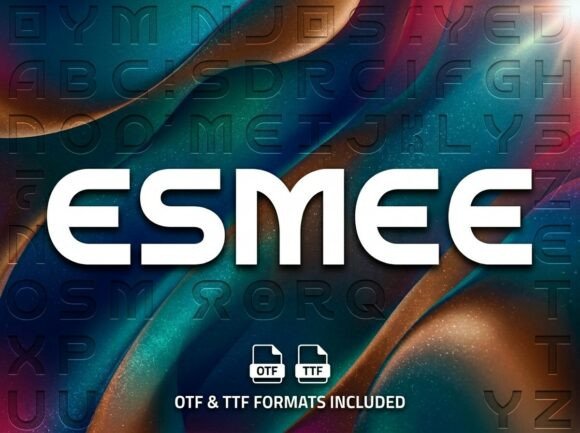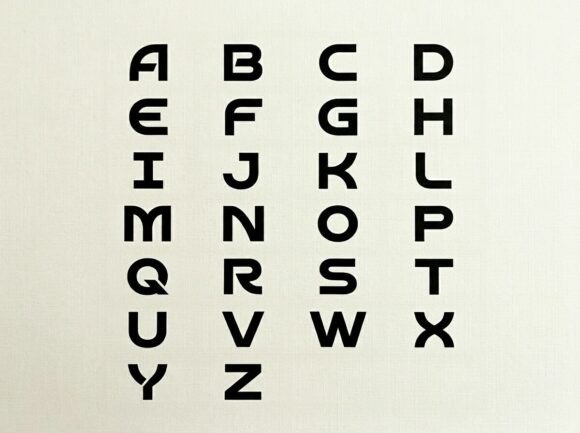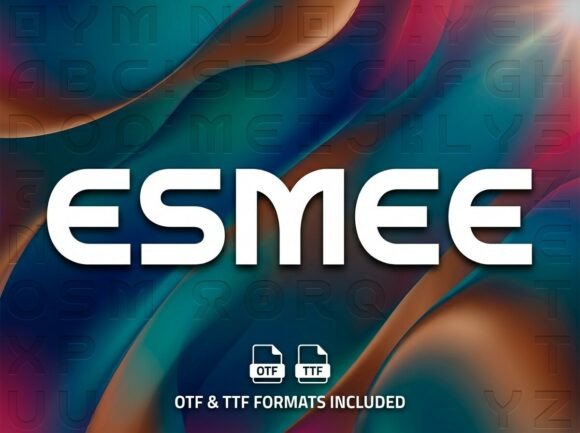
Introducing Esmee Font: A Stunning Decorative Display Font
Are you tired of using the same old fonts for your creative projects? Look no further than Esmee Font, a breathtaking decorative display font that’s sure to turn heads. With its unique artistic elements and strong visual personality, this font is perfect for creators who want to break away from the ordinary and make a statement.
What Makes Esmee Font So Special?
Esmee Font is a versatile decorative display font that’s designed to be the center of attention. Its stunning artistic elements and strong visual personality make it perfect for a variety of creative projects, from bold headlines and artistic logos to creative packaging and decorative initials. Whether you’re a designer, crafty DIY enthusiast, or simply someone who loves to create, Esmee Font is the perfect choice for anyone looking to add a touch of elegance and sophistication to their work.
Key Features of Esmee Font
• Unique Artistic Elements: Esmee Font features unique artistic elements that set it apart from other fonts. Each letter is carefully crafted to make a statement and add a touch of elegance to your creative projects.
• Strong Visual Personality: This font has a strong visual personality that’s sure to grab attention. Whether you’re using it for a headline, logo, or packaging, Esmee Font is sure to make a lasting impression.
• Versatile: Esmee Font is versatile enough for a variety of creative projects, from bold headlines and artistic logos to creative packaging and decorative initials.
• Professional and Polished Finish: Despite its decorative nature, Esmee Font maintains a professional and polished finish that’s perfect for high-end designs.
Please note that Esmee Font is an ALL-CAPS (Uppercase Only) display typeface. This means that it does not include lowercase letters. It’s specifically designed for high-impact headlines, logos, and decorative initials where every letter is a work of art.
Why Choose Esmee Font?
So why choose Esmee Font over other decorative display fonts on the market? Here are just a few reasons:
• Unique and Eye-Catching: Esmee Font is truly one-of-a-kind. Its unique artistic elements and strong visual personality make it perfect for creators who want to stand out from the crowd.
• Perfect for a Variety of Projects: Whether you’re working on a logo, packaging, or simply want to add some flair to your social media graphics, Esmee Font is versatile enough to handle it all.
Tips for Using Esmee Font
Here are a few tips for getting the most out of Esmee Font:
• Use it for Headlines and Titles: Esmee Font is perfect for headlines and titles where you want to make a big impact. Try using it for blog posts, social media graphics, or even book titles.
• Experiment with Colors and Textures: To really make Esmee Font pop, try experimenting with different colors and textures. Whether you’re using a bold and bright color or a more muted and subtle tone, Esmee Font is sure to look great.
• Pair it with Other Fonts: For a truly unique look, try pairing Esmee Font with other fonts. Whether you’re using a simple sans-serif font or a more decorative script font, Esmee Font is sure to add a touch of elegance to your design.
In conclusion, Esmee Font is a stunning decorative display font that’s perfect for creators who want to break away from the ordinary and make a statement. With its unique artistic elements, strong visual personality, and versatility, Esmee Font is sure to be a valuable addition to any designer’s toolkit. So why wait? Purchase Esmee Font today and start creating stunning designs that are sure to turn heads!